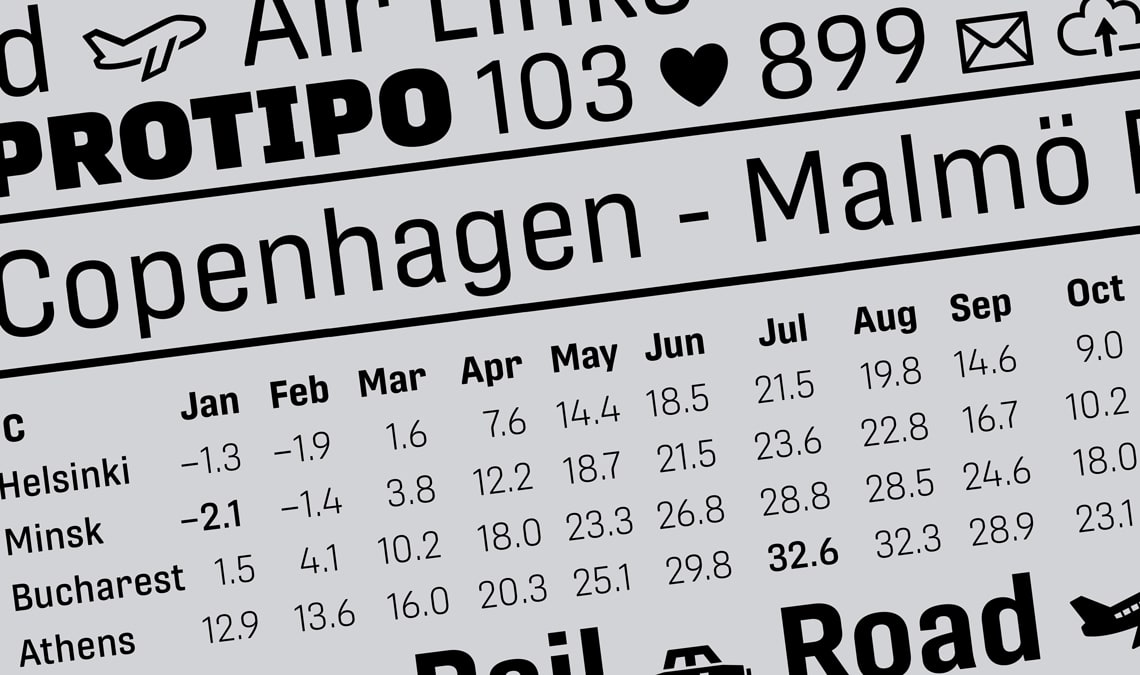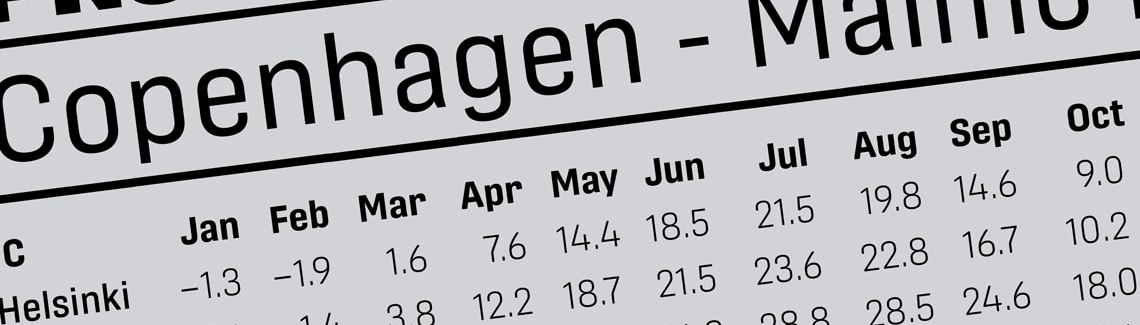
Dissection, a weekly podcast “that uncovers the unique creative process of designers” interviewed Veronika Burian and José Scaglione regarding our latest typeface, Protipo.
Co-hosts Christopher Holewski and Jason Alejandro run Dissection, a podcast that interviews design practitioners across a variety of fields to tell the in-depth story behind one project of their own choosing. José Scaglione and Veronika Burian were recently interviewed about the inspiration and making of the Protipo font family, our type family for infographics. This episode was sponsored by The Typographics Festival, at which Veronika and José will be speaking. To learn more, and purchase tickets, visit them at http://2018.typographics.com. Discounted early bird tickets are available now through March 31.)